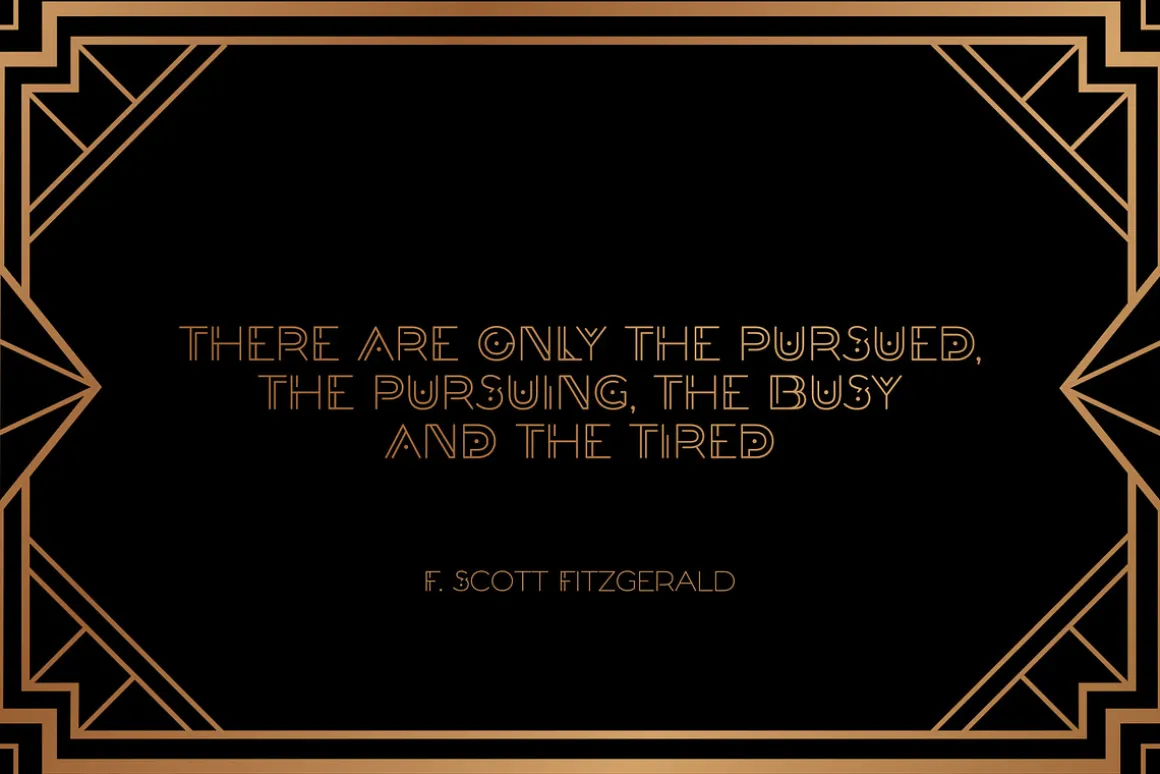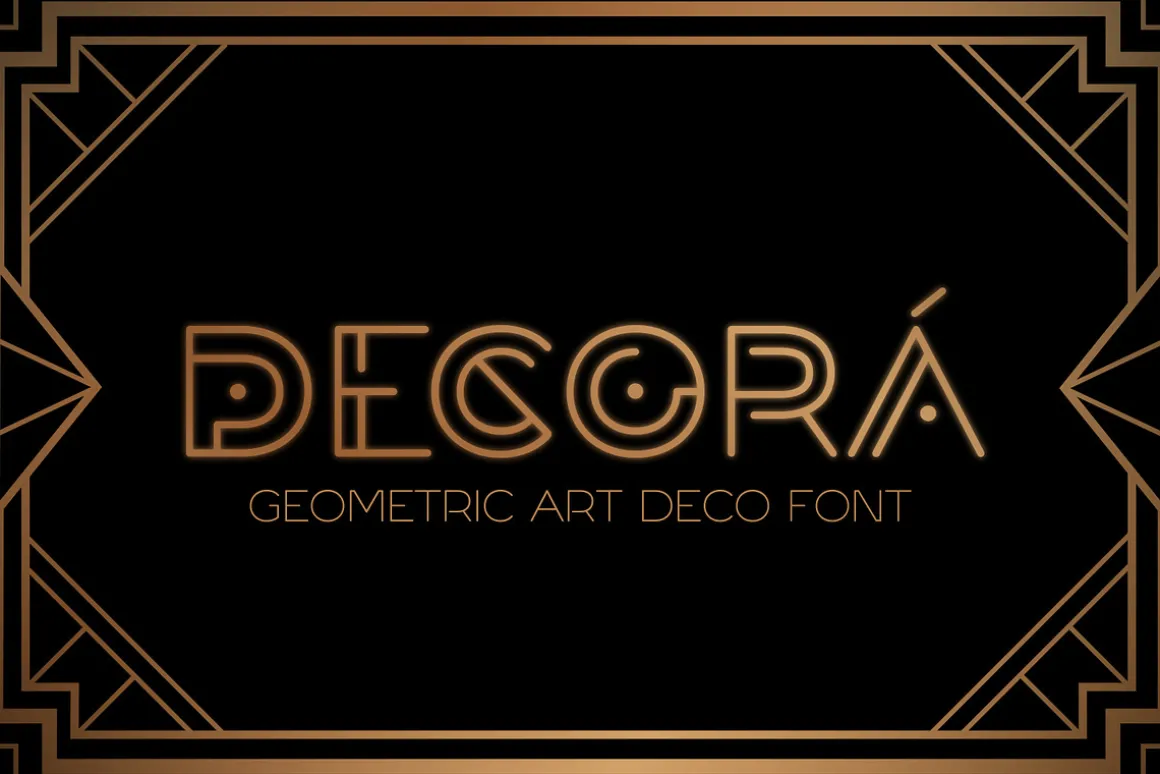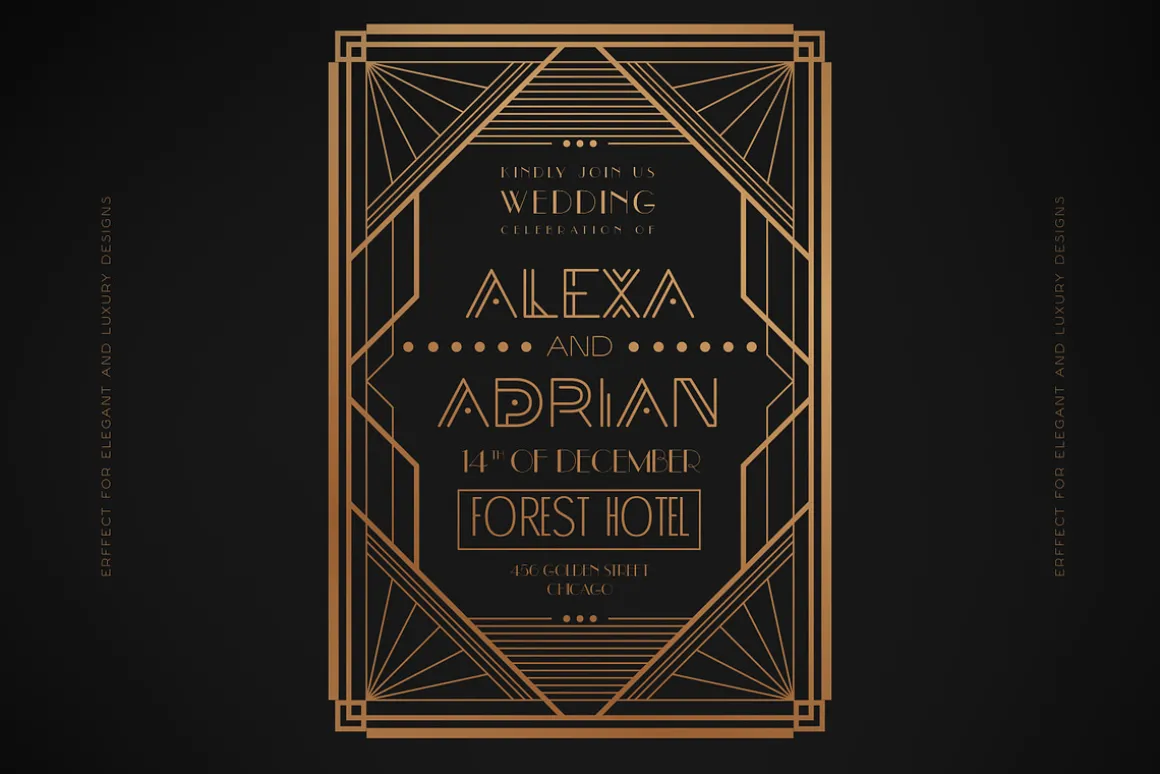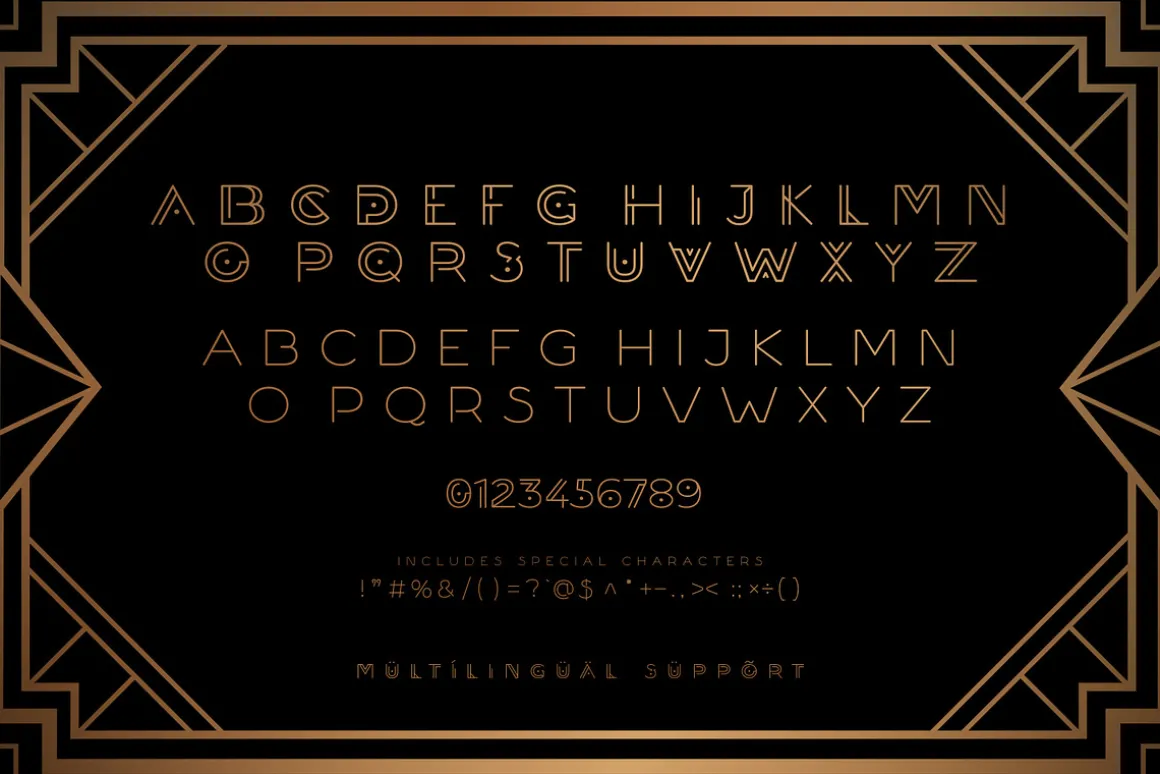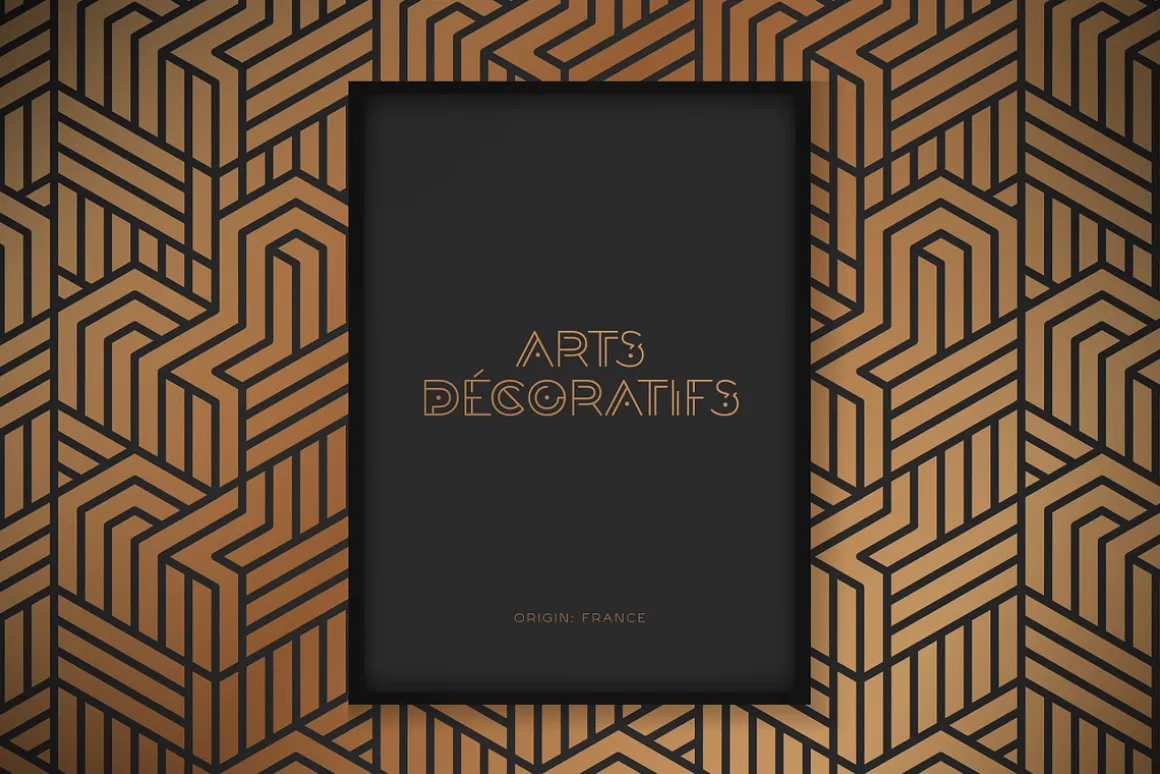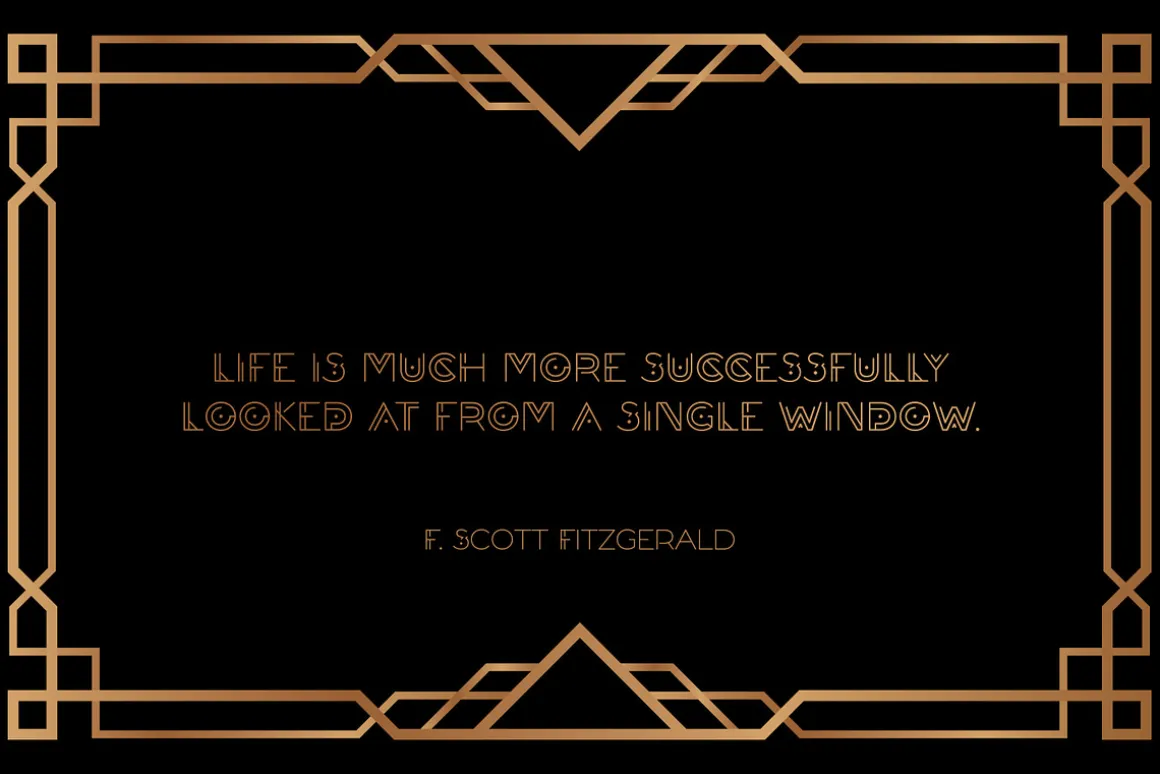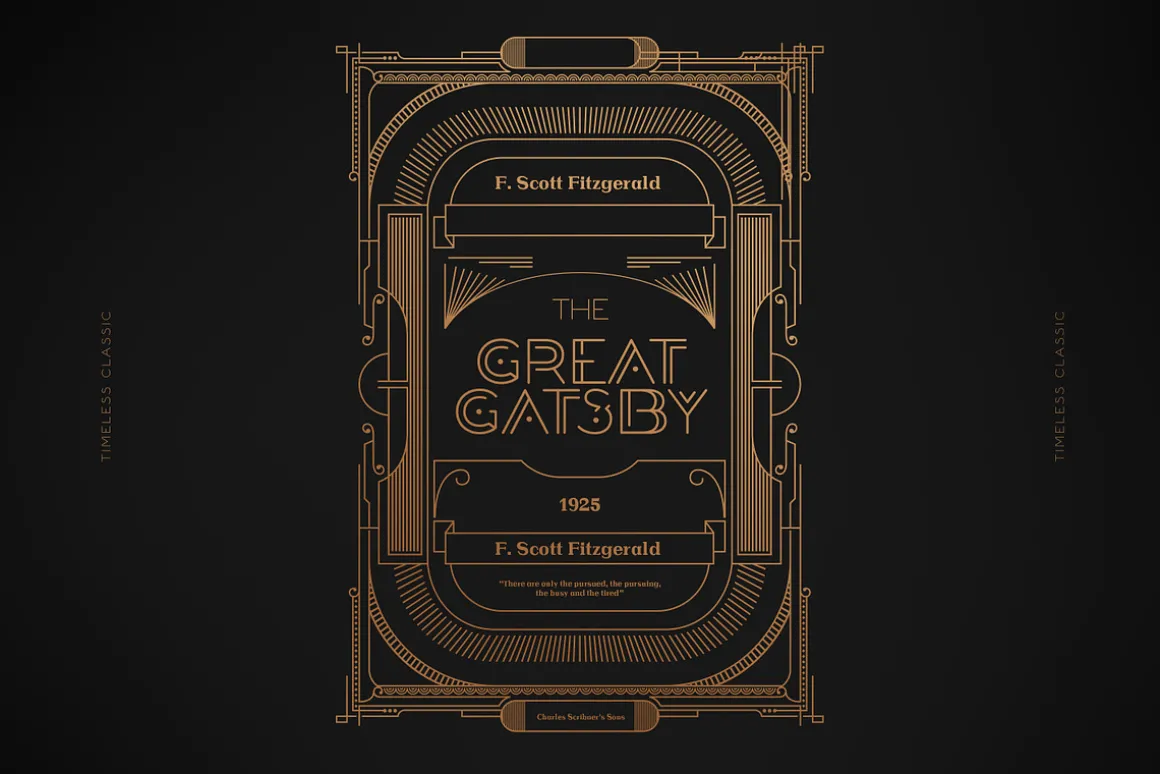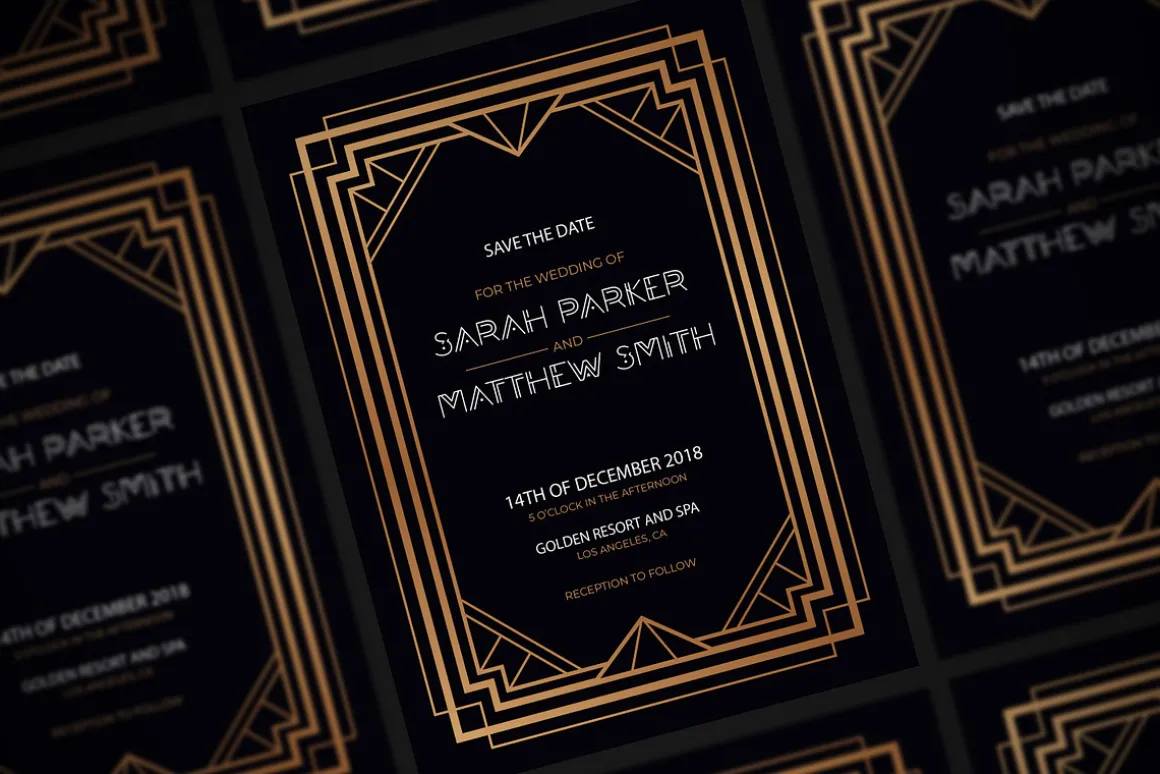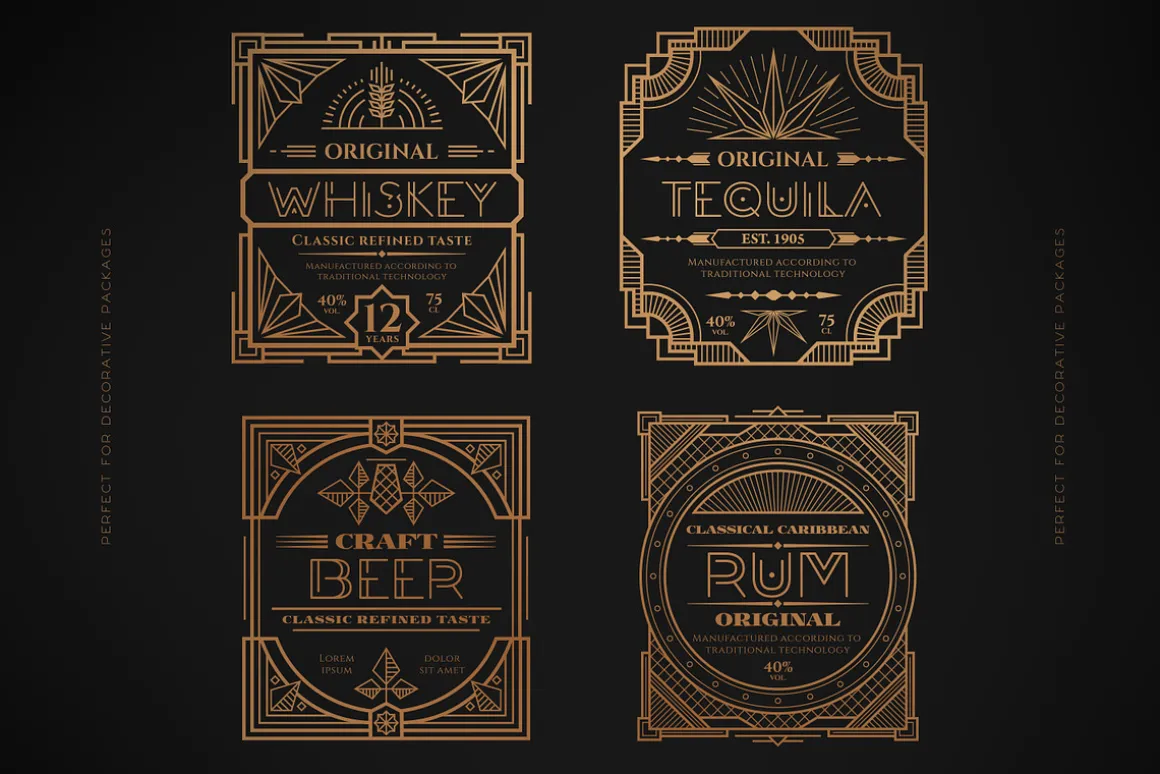
Introducing Decorá – a geometric font inspired by the 1920’s Art Deco Movement. The main keywords that characterize the Art Deco moment and the font are – luxury, clean lines, grandiose, elegant, modern, rich, geometric, progress, and hope.
It’s perfect for all luxurious package designs, invitations, logos, branding, and much more.